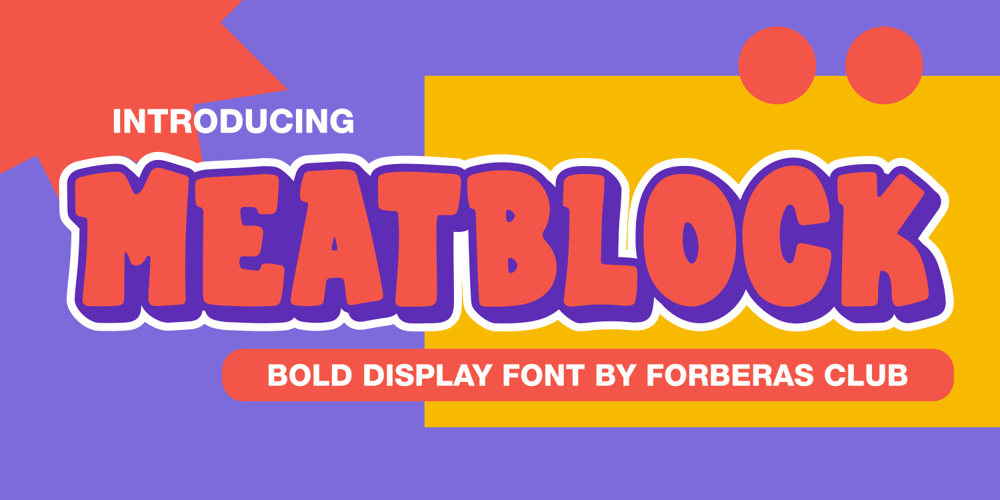
Meatblock Font Family was designed by ANGGI HERMAWAN and published by Forberas Club. Meatblock contains 1 styles and family package options. Meatblock it’s modern typeface style. Can be use for modern logo, tees design, logotype, and many more about modern and clean style.